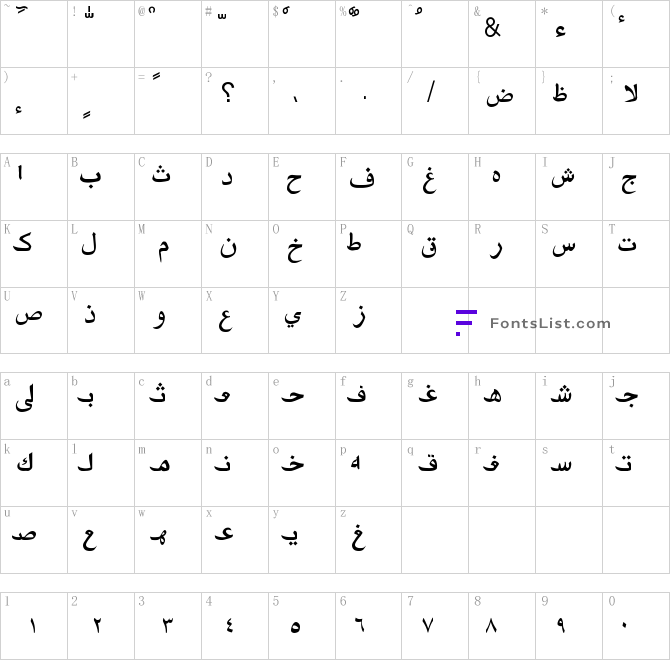
- Font Name:Amien 01
Amien-01.ttf is a very beautiful artistic font, Amien-01.ttf is widely used in the design and printing of various books and pictures,Amien-01.ttf has a strong visual impact,Amien-01.ttf is a commonly used font in newspapers, magazines and books, and is used in posters, e-commerce Poster design, store design, logo design, font design and other fields.Amien-01.